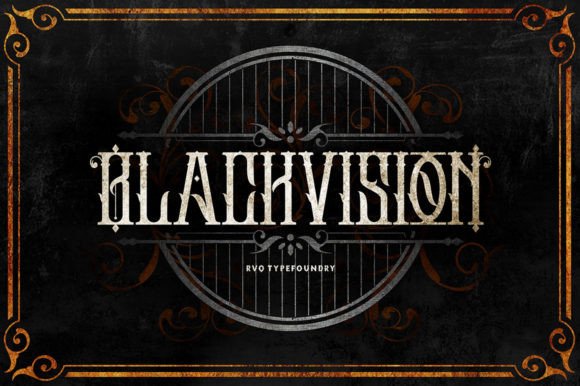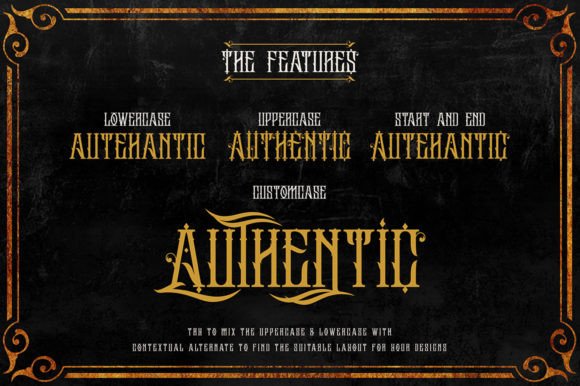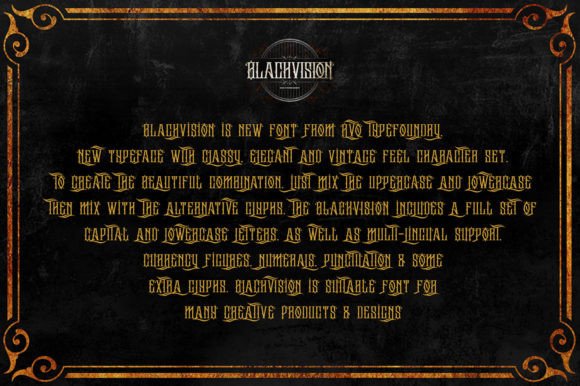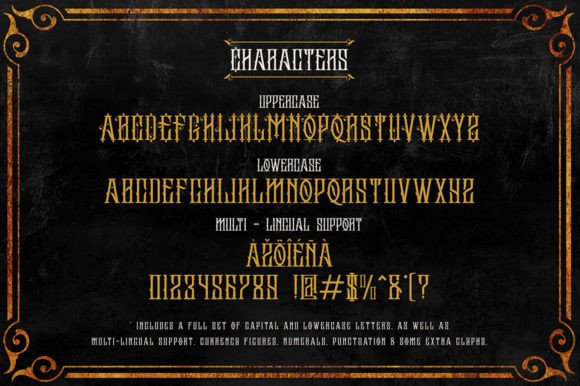
Black Vision Font: Bold Blackletter Typography for Unique Logo Design
About the Black Vision Font
Get ready to be inspired by Black Vision Font, a fresh and dynamic typeface for modern creators. Black Vision is a bold blackletter font that will make your text stand out. Its heavy strokes and distinctive, old-style letterforms are sure to capture your audience’s attention. Perfect for creating an impactful and dramatic design.
Black Vision excels in headline applications, short impactful statements, logos, and branding projects requiring a strong, authoritative presence. It’s ideal for posters, packaging for luxury goods, or any design needing a vintage yet powerful feel. However, its heavy weight and ornate details make it unsuitable for body text or user interfaces where readability is paramount. Long blocks of text set in Black Vision would be difficult to read.
Pairing Black Vision effectively requires considering its bold personality. A clean, minimalist sans-serif like Montserrat or Open Sans would provide a striking contrast and improve readability when used for supporting text. For a more traditional feel, a classic serif font such as Garamond or Didot could complement its old-style influences, creating a sophisticated and balanced composition.
The font’s core personality is bold, dramatic, and authoritative, conveying a sense of heritage and high quality. It is best suited for brands aiming for a strong, memorable, and slightly rebellious image, perhaps in the luxury goods, fashion, or music industries.